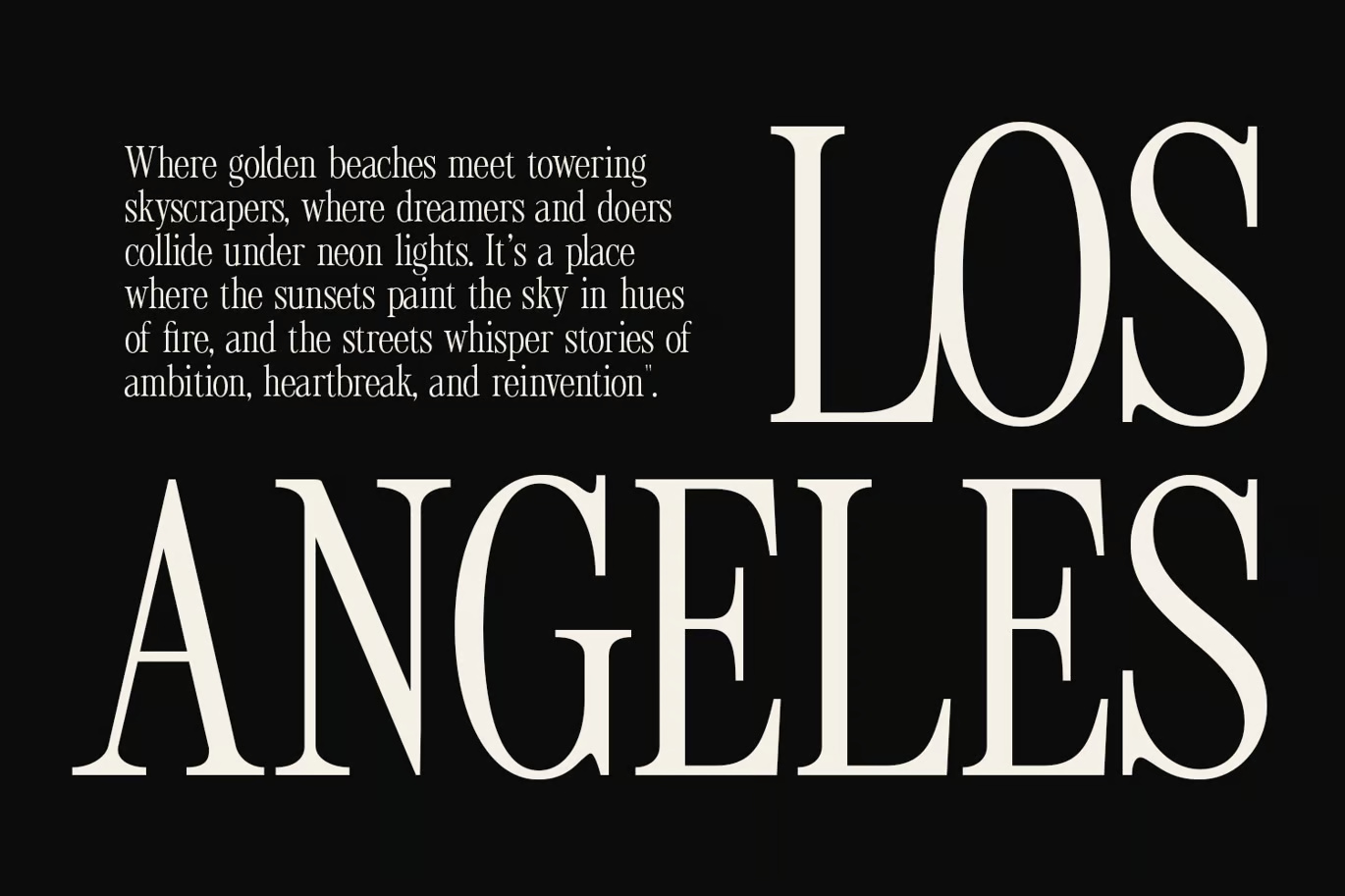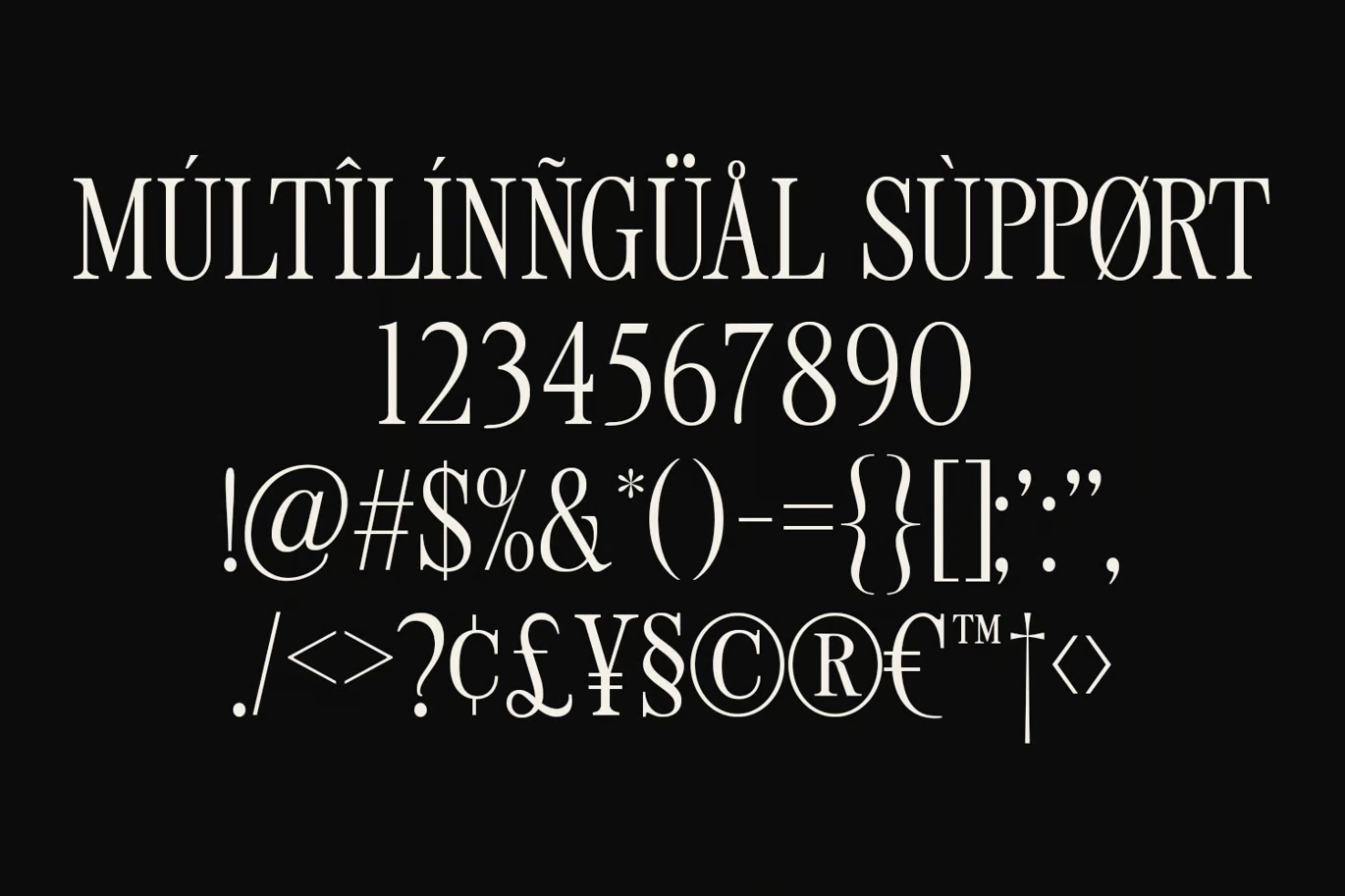
Tirone is narrow and tall, with thin hairlines and long, sharp serifs. The R has a sweeping leg that reaches past the next letter. In the specimen, LOS ANGELES is stacked in two lines next to a paragraph about dreamers and neon lights, and it reads like a film poster from the 1940s.
Viswell Studio added multilingual support, and the character page shows accented capitals, figures and a full set of symbols such as © and ®. The download includes TTF and WOFF2 files, so it is ready for web mockups too.
Best uses for Tirone
- Film and theatre posters
- Magazine covers
- City and travel campaigns
- Luxury brand headings
- Album covers
Tirone works best large, with a simple sans underneath. Montserrat suits body text. Cormorant adds a serif for longer reading in the same mood.
Tirone Serif Font